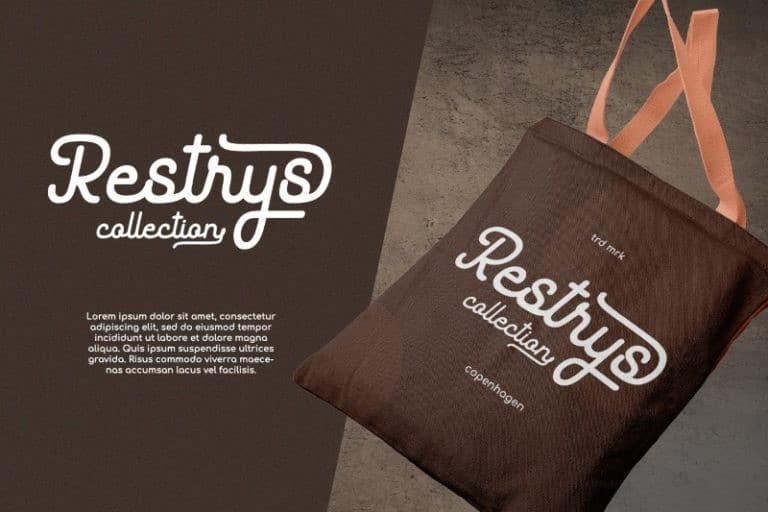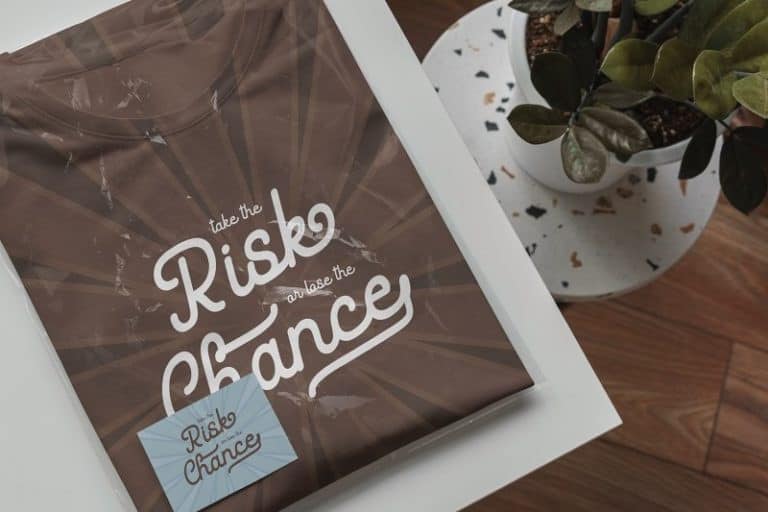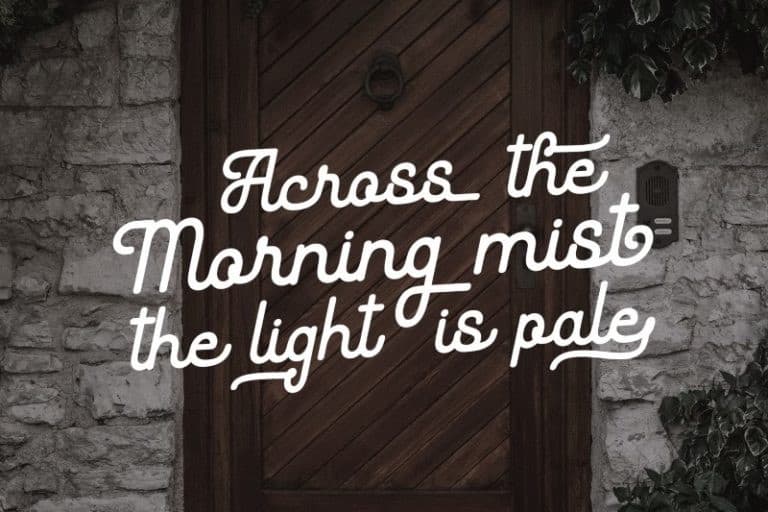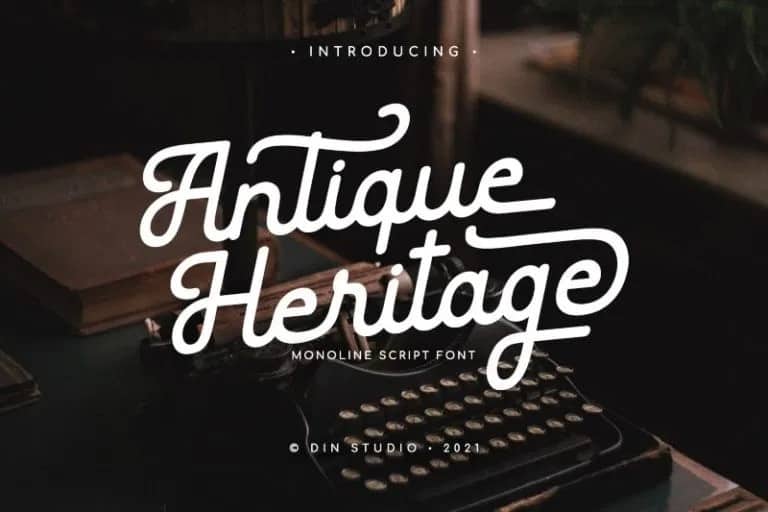
Antique Heritage Script Font
Antique Heritage Script Font is a simple, beautiful and relaxed monoline typeface. It’s designed and shared by Din Studio. This font is best to add antiques to your projects that have vintage styles and shapes can help bring to a fine new level. Also, to increase a real sense of timelessness. Use it for headings, logos, business cards, printed quotes, invitations of all sorts, cards, packaging, and your website or social media branding.